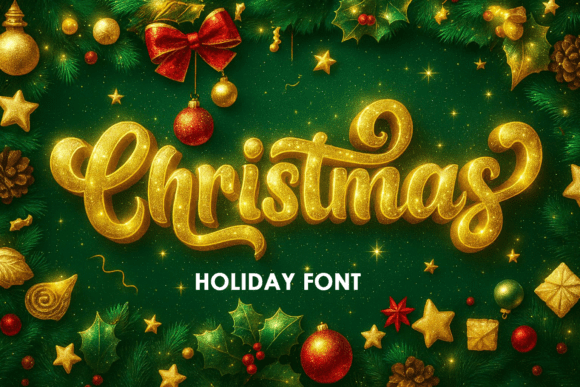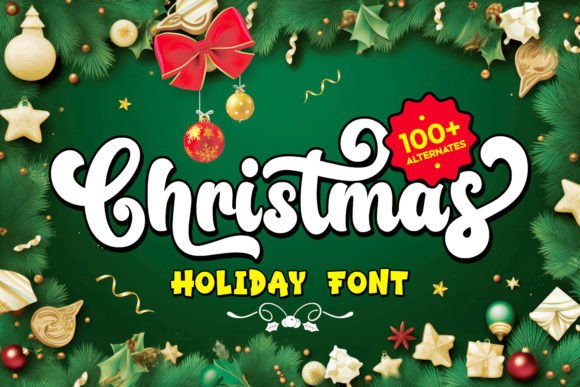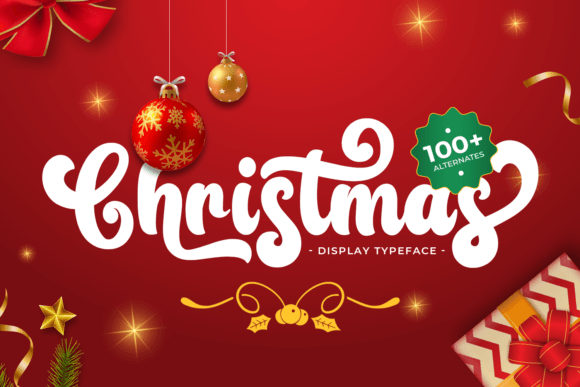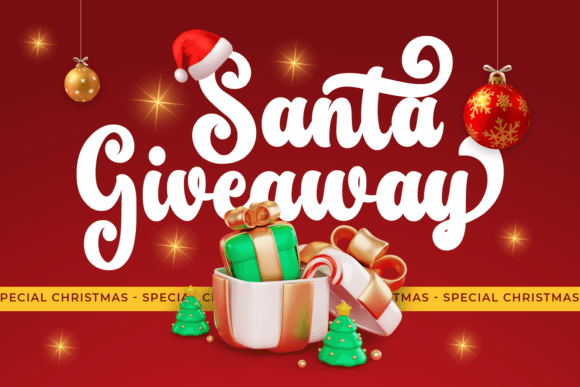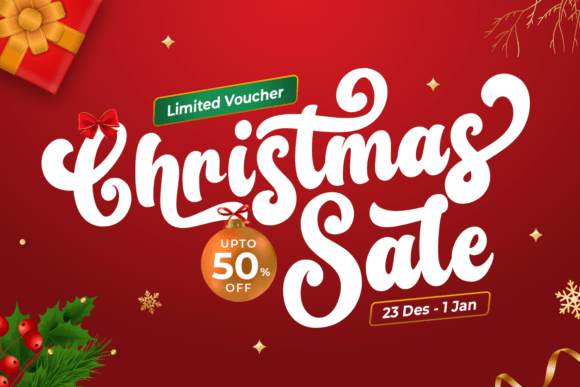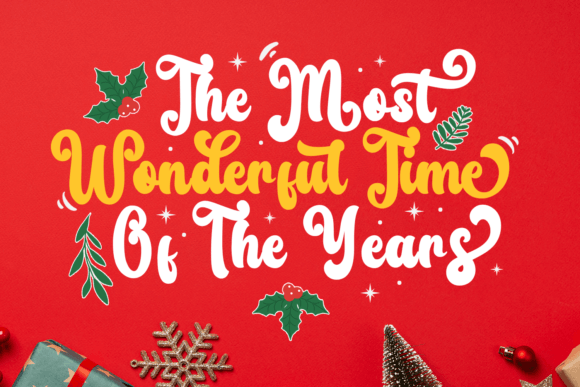
The Magic of Christmas Font: Adding a Touch of Warmth to Your Designs
As I sat down to plan this year’s holiday card, I found myself reaching for my favorite font – the one that makes me feel like I’m wrapping a present in love. The Christmas Font is more than just a typeface; it’s a way to infuse your designs with the warmth and charm of the season.
This delightful handwritten font is perfect for adding a romantic, personalized touch to your projects. Whether you’re crafting wedding invitations, holiday cards, or heartfelt messages, Christmas Font adds a festive flair that’s sure to delight. Its versatility makes it ideal for both crafting and branding, and its PUA encoding ensures that you can easily access all the glyphs and ligatures you need to create stunning designs.
Key Features of Christmas Font
- Unique Characteristics: The font features a festive and playful design, with bold and colorful characters that evoke the spirit of Christmas. The font includes a range of ornaments and decorations, such as holly leaves, snowflakes, and stars.
Designer Review: Christmas Font
Overall, the Christmas Font is a cheerful addition to any holiday project. ✨ It’s perfect for social media graphics, greeting cards, and even packaging. The font’s playful feel makes it ideal for a fun and festive atmosphere.
The font has a wide range of characters, including uppercase and lowercase letters, numbers, and punctuation. This makes it a versatile choice for various design projects.
- ✨ The font is highly customizable, with options for adjusting font size, color, and style.
- ✨ The playful design makes it perfect for holiday projects.
- ✨ The font is easy to read and understand, even in small sizes.
- ⚠️ Limited support for non-Latin characters.
- ⚠️ Some users may find the font too over-the-top for more serious projects.
While the Christmas Font excels in its playful and customizable nature, it may not be the best choice for projects requiring more serious or professional tone. However, for a holiday-themed project, this font is sure to bring a smile to your audience’s faces.
Use the font to create festive headings, titles, and body text for your designs. You can also pair it with other design elements like holly, snowflakes, or presents to create a cohesive look.
Use the font to create custom invitations, greeting cards, or digital artwork. You can also experiment with layer styles and effects to add a festive touch.
Use the font to create festive presentations, party invitations, or holiday-themed documents. You can also use it to add a touch of personality to your business communications.
The Christmas font is ideal for creating festive designs for:
- Holiday cards and invitations
- Party decorations and signage
- Digital artwork and graphics
- Business communications and marketing materials